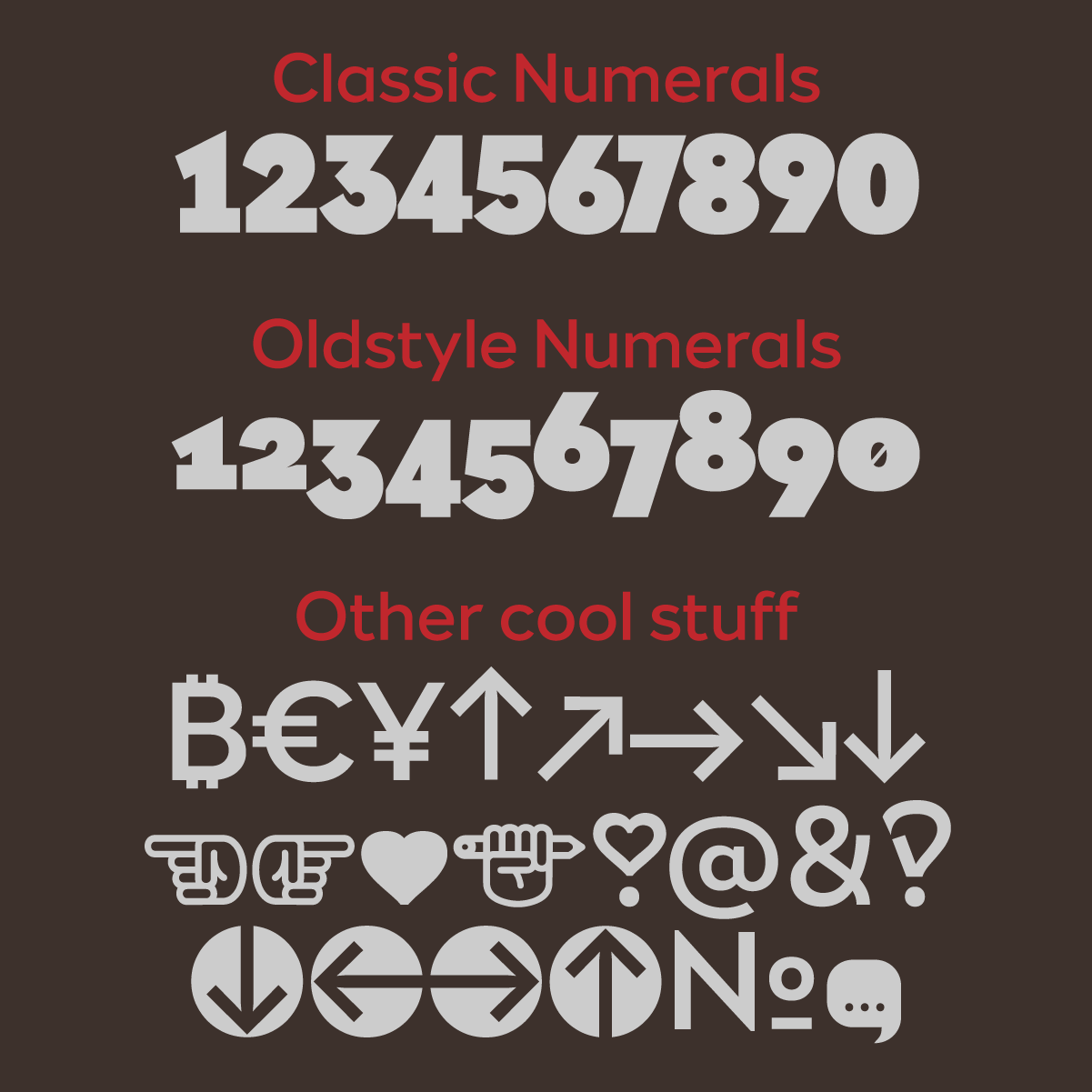
This month we’re introducing two new amazing typefaces that you’re going to love!
First one is LOTO Sans, a 9 weights sans serif + variable font. Great for print on web, branding, packaging, practically everything.
The second one is Graf, a new display typeface designed to make an impact. It has a classic look but yet it's very modern. It works for everything from Sports, Tech, Editorials to fun branding projects.